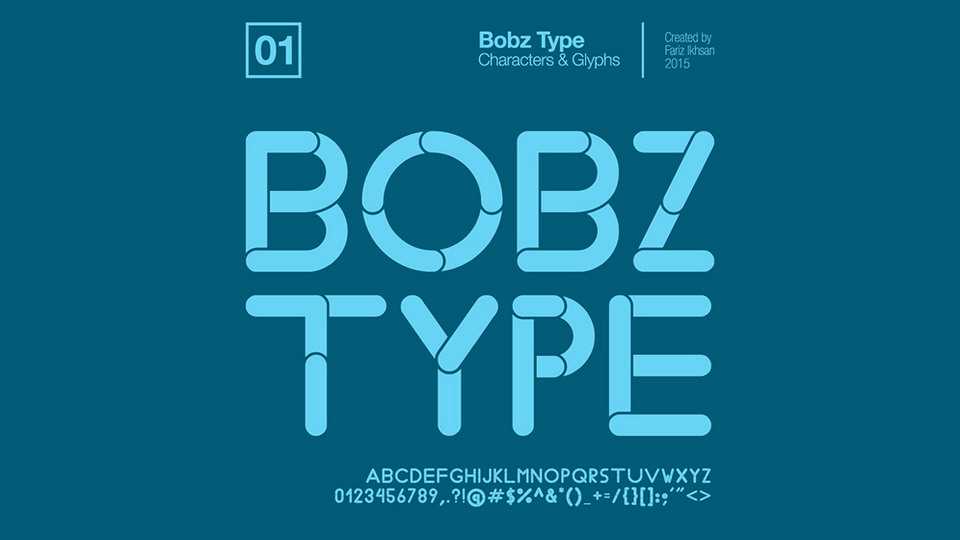
Download Bobz Type font, a creative geometric typeface with rounded shapes and stencil characters. It’s suitable for display purposes, such as posters, headlines, packaging, t-shirt designs and other artworks.
Designer: Mohammad Fariz Ikhsan